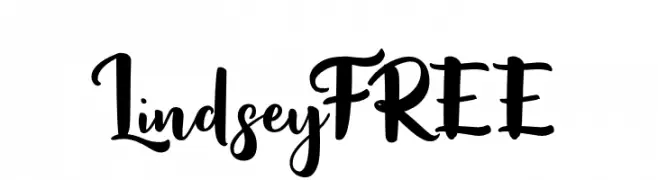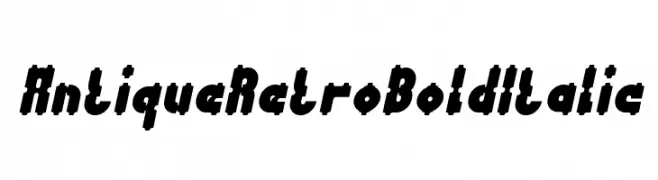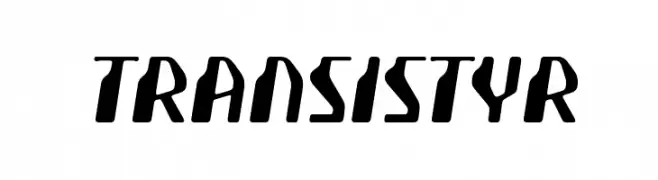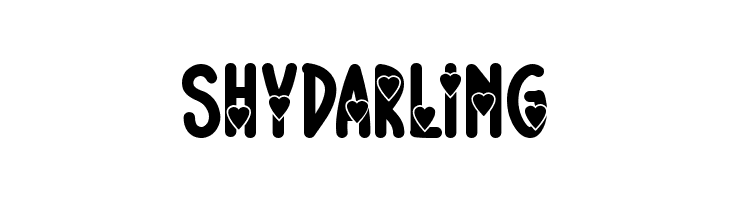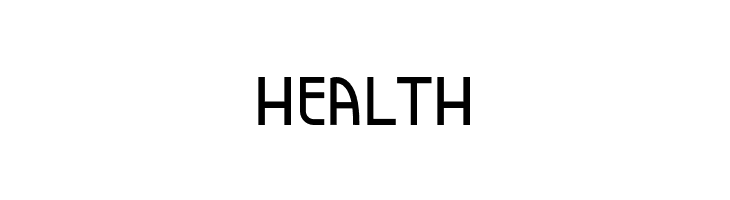
An outline font with a blend of serif and decorative elements, offering a bold and artistic style.
Extra condensed Hebrew serif font with medium weight.
A decorative icon font with bold, playful silhouettes representing diverse objects and activities.
An elegant, flowing script font with intricate swirls and loops.
A bold, cursive script with elegant, flowing strokes and playful flourishes.
A bold, italicized retro font with an antique, decorative style.
A casual, handwritten font with bold strokes and a playful style.
A bold, angular font with a futuristic and dynamic style.
A clean, modern sans-serif font with balanced spacing and clear characters.